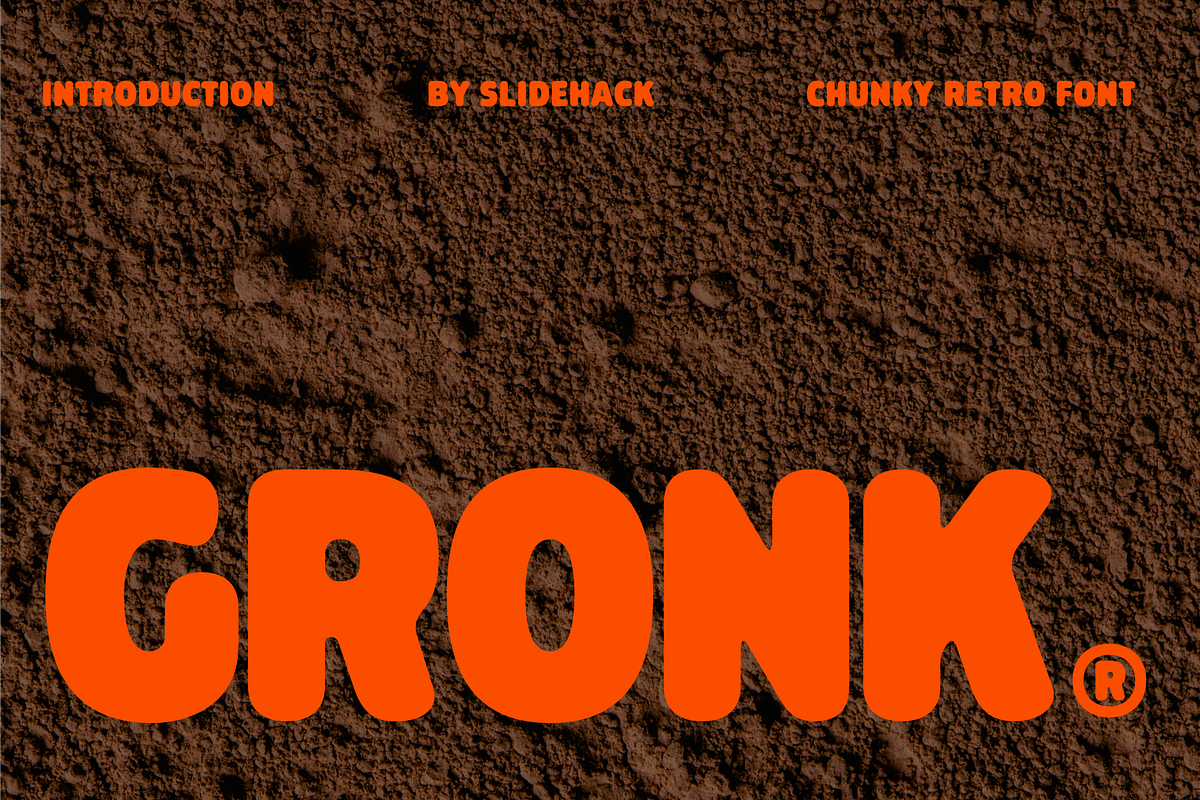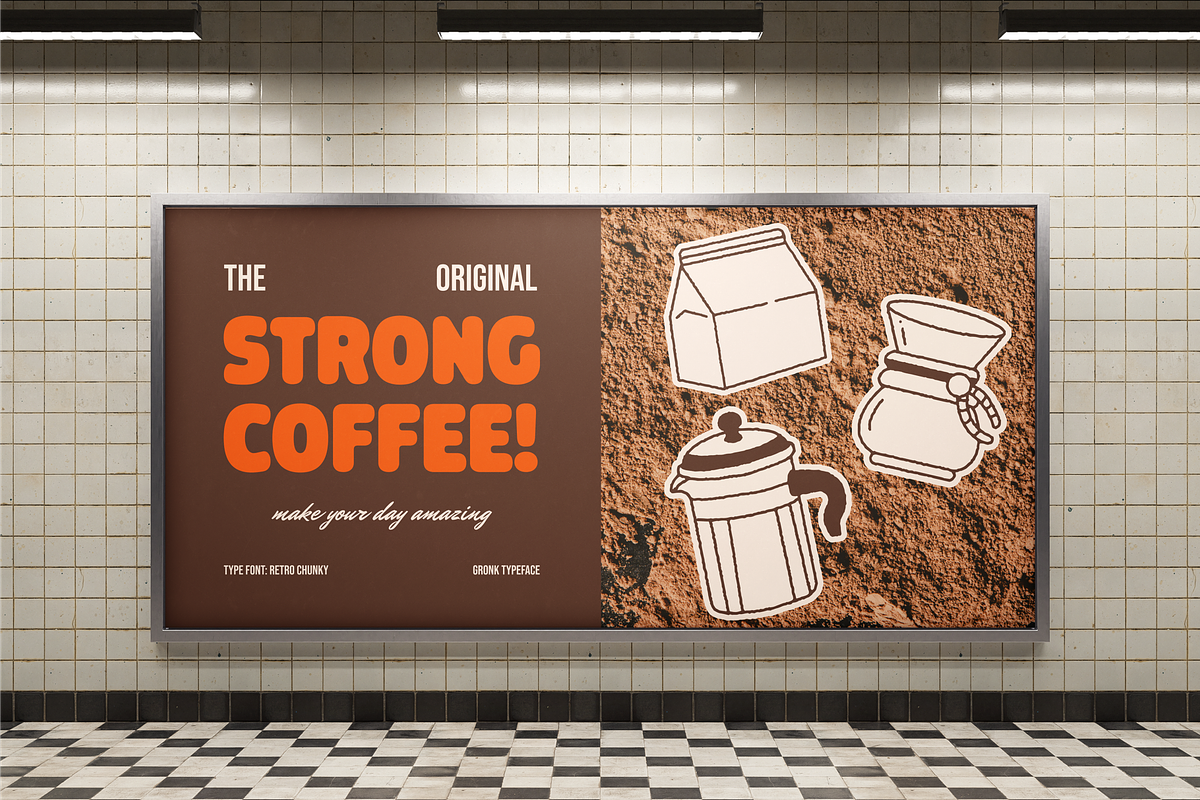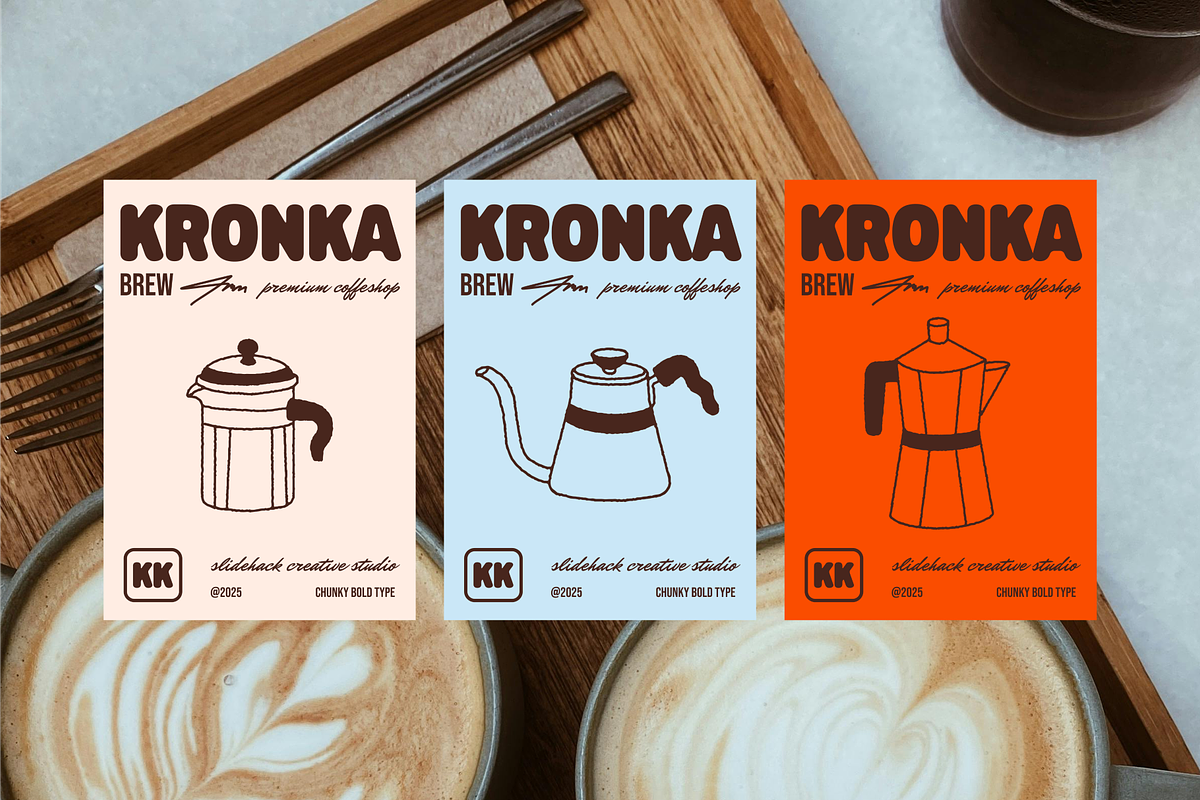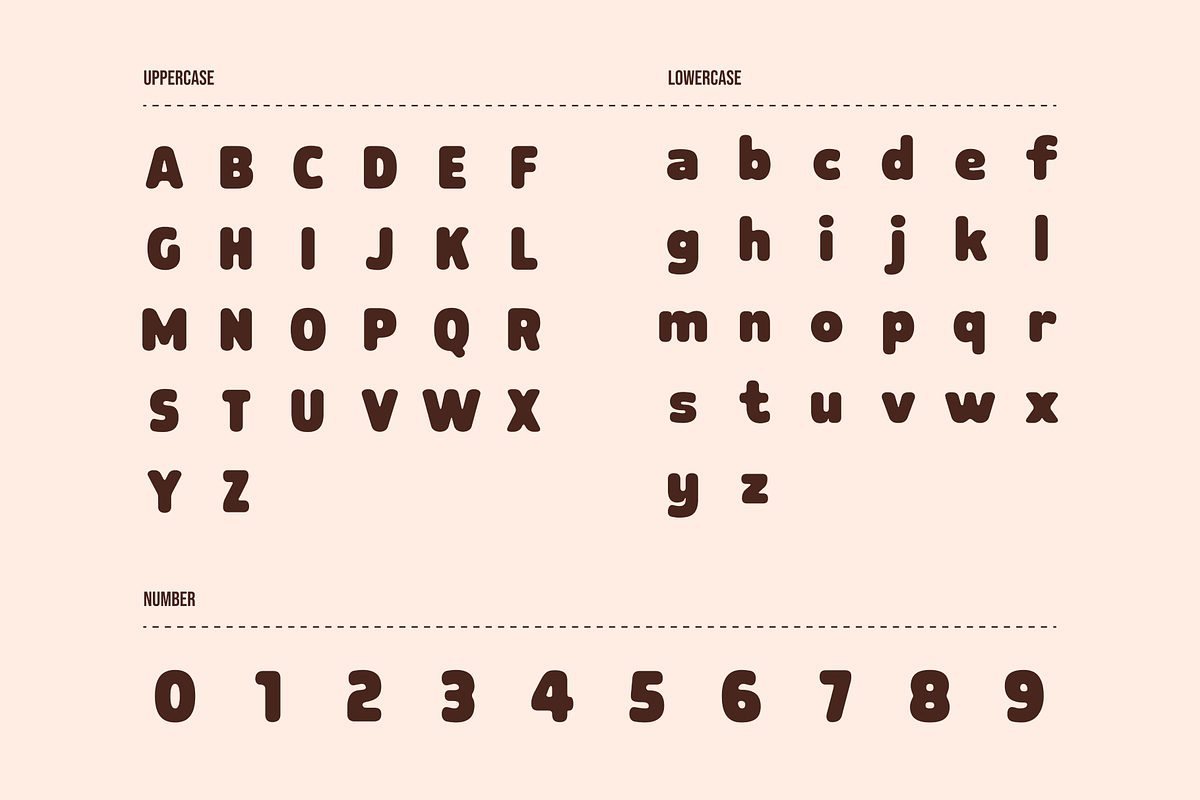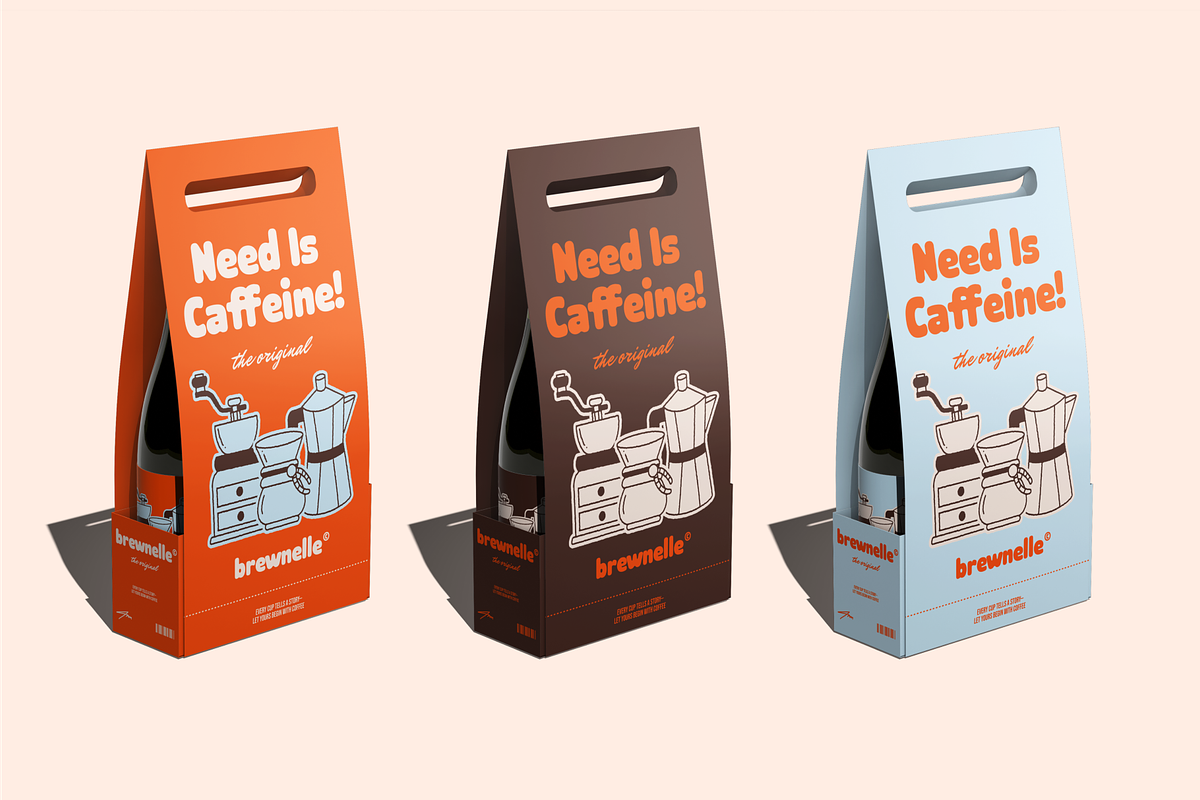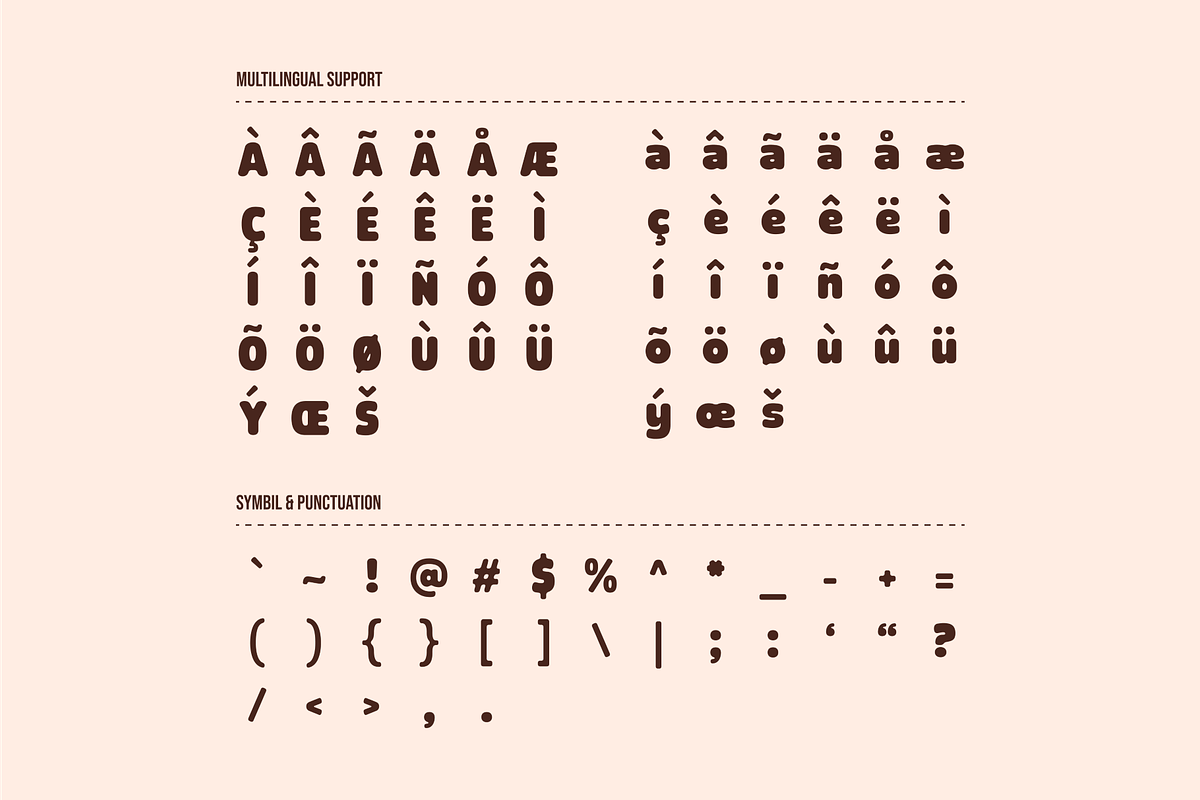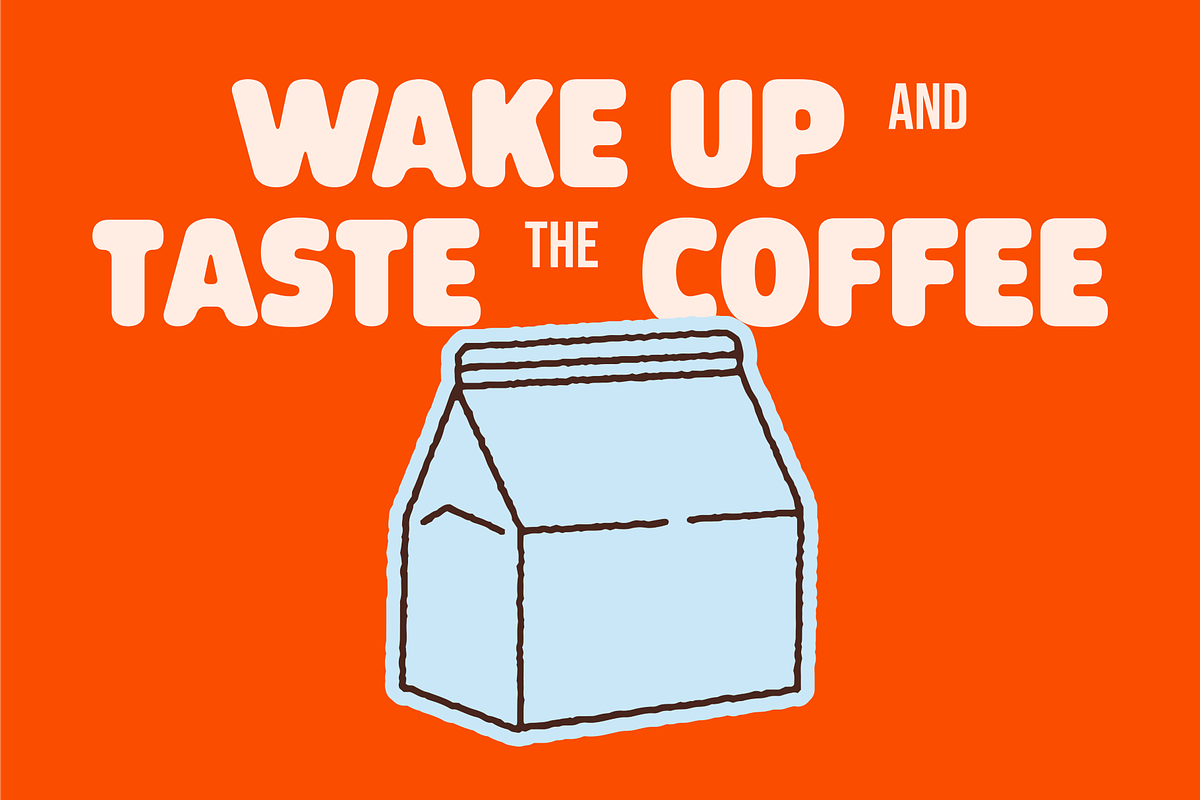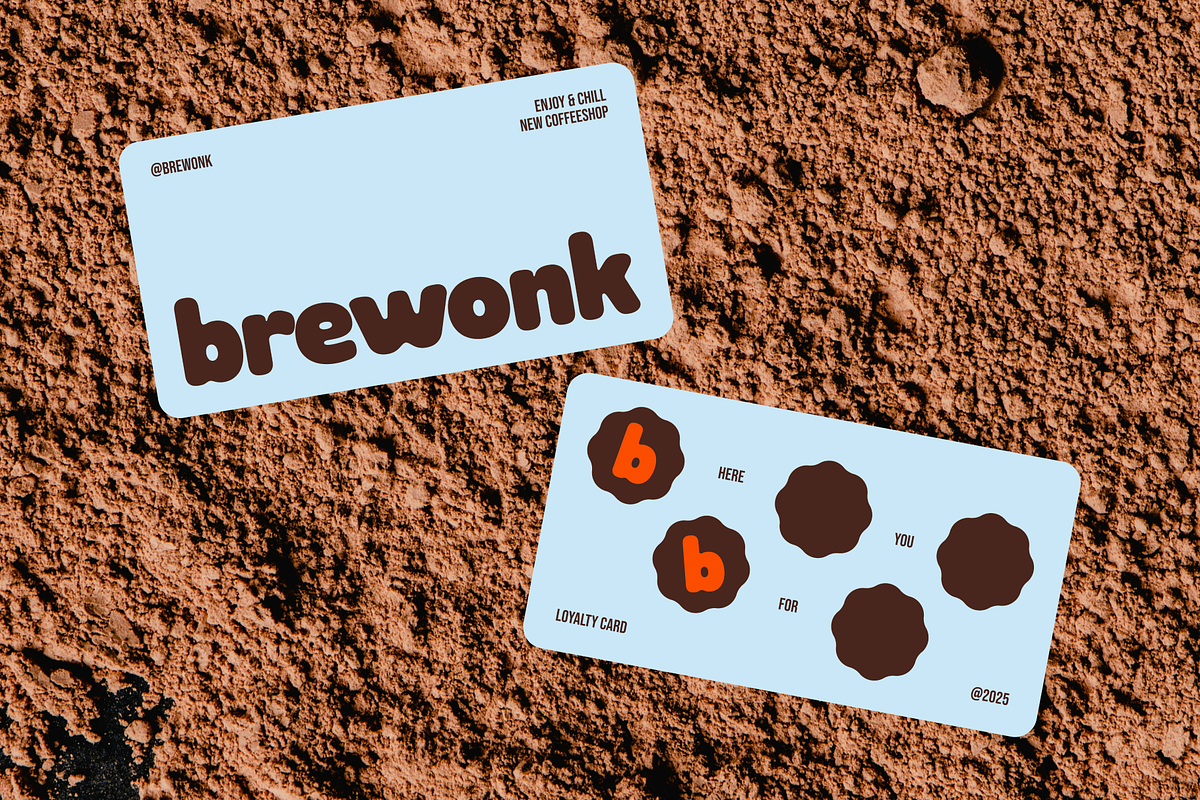
Gronk - Chunky Display Font
Gronk – Display Font is a bold, chunky retro typeface designed for impactful headlines, branding, posters, packaging, and social media graphics. Its playful curves and strong presence bring a fun, vintage vibe to any project, making it perfect for creative designers who want attention-grabbing and memorable typography.